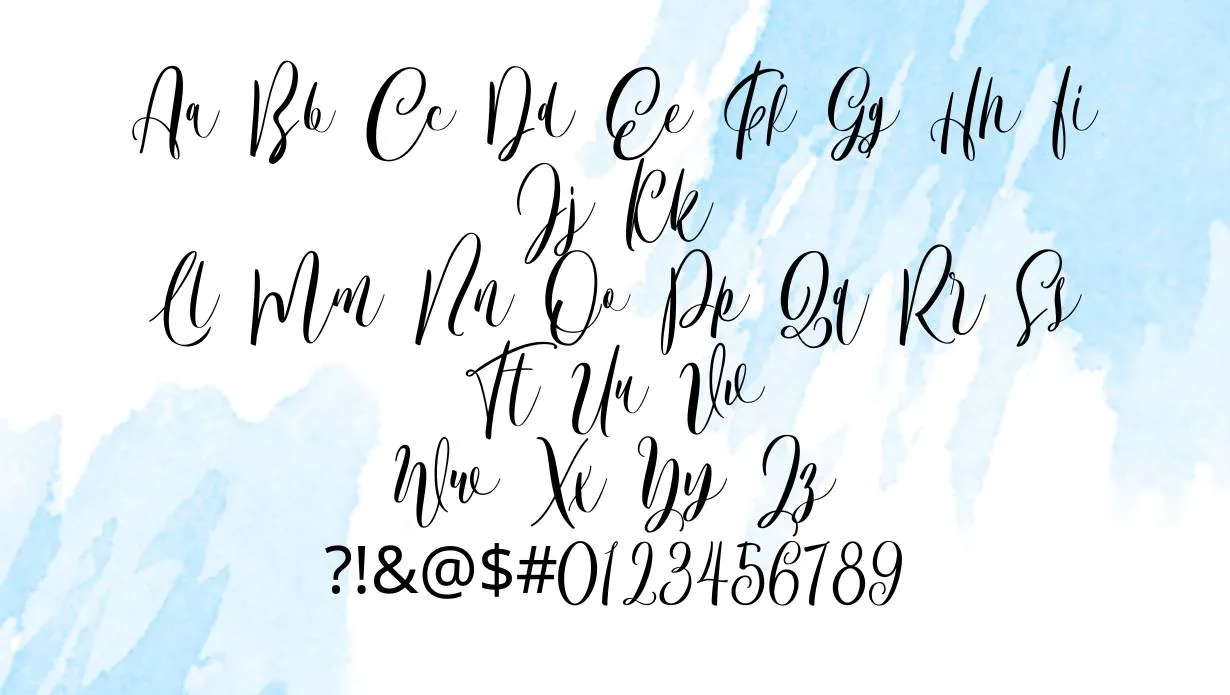
Bordellia Font is a stylish and versatile typeface known for its modern and adaptable design. Its contemporary appearance makes it suitable for a variety of digital projects and branding materials.
| Name | Bordellia Font |
| Designer | Angin Studio |
| Style | Calligrpahy |